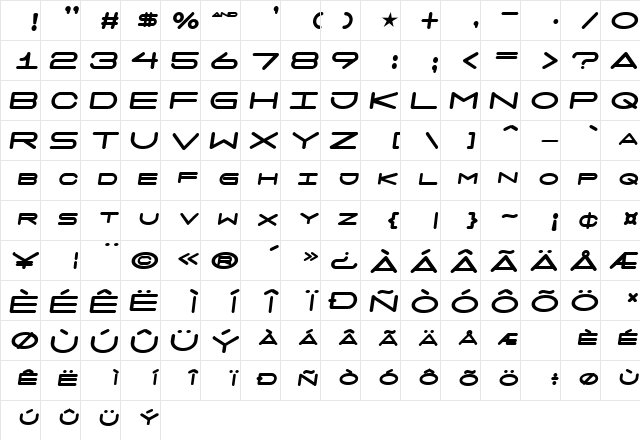
7 days fat oblique Regular
Design Context for 7 days fat oblique Typeface
7 days fat oblique is a composed and adaptable typeface that performs quietly and consistently across a wide range of design contexts. The dynamic lean of this cut emphasises speed and emphasis in any layout.
Pro Tip: Use 7 days fat oblique for emphasis, pull quotes, and subheadings where its slanted energy can add rhythm to the layout.